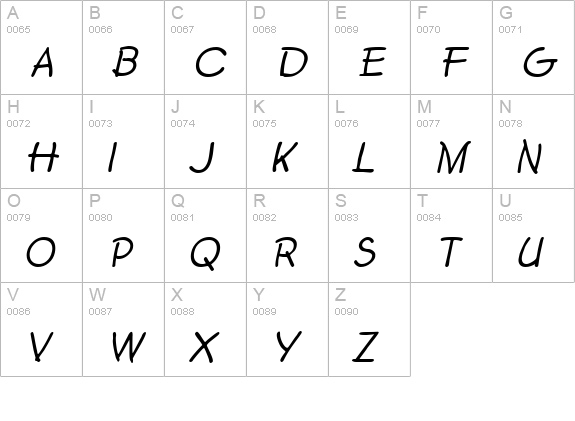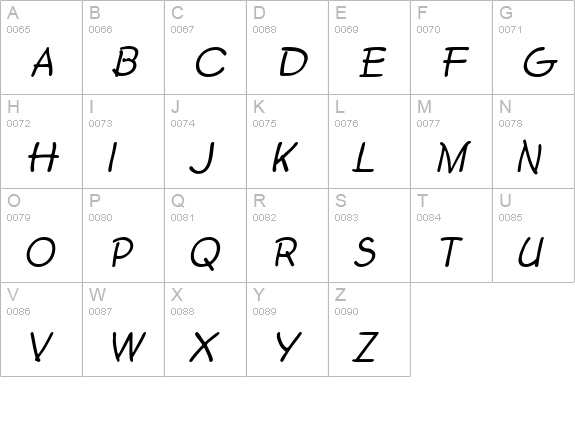
SecondGrader Italic Font Details
SecondGrader Italic is a distinctive, italic variant in the SecondGrader typeface family \xE2\x80\x94 well suited to design and typography projects.
SecondGrader Italic font is a delightful and playful typeface that captures the essence of childhood innocence. It is the perfect choice for any project that requires a touch of whimsy and charm. With its slanted and slanted letterforms, this font adds a sense of movement and energy to your designs. This font is freely available to download at FontsMarket.com, making it accessible to everyone who wants to add a touch of fun to their creations. Whether you're a graphic designer, a teacher creating educational materials, or a parent crafting invitations for a children's party, SecondGrader Italic font will bring a smile to your face and captivate your audience. The charming and slightly imperfect letterforms of SecondGrader Italic font give it a hand-drawn feel, as if it were created by a creative and imaginative second grader. Each letter has a unique personality, with quirky details that make it stand out. From the slightly wobbly lines to the playful curves, this font is full of character and personality. SecondGrader Italic font is versatile and can be used for a wide range of projects. Its legibility makes it ideal for headlines, titles, and short blocks of text. It also works well in larger sizes for posters, banners, and signage. Whether you're designing a children's book, a website for a toy store, or a flyer for a school event, this font will make your designs come alive. With its bold and vibrant appearance, SecondGrader Italic font is sure to capture the attention of your audience. It evokes a sense of joy and happiness, making it perfect for projects aimed at children or those who are young at heart. The playful nature of this font will bring a sense of fun and excitement to any design. Download SecondGrader Italic font for free at FontsMarket.com and let your creativity soar. Whether you're a professional designer or a student working on a school project, this font will add a touch of whimsy and charm to your work. Don't miss out on this opportunity to bring your designs to life with the delightful SecondGrader Italic font.